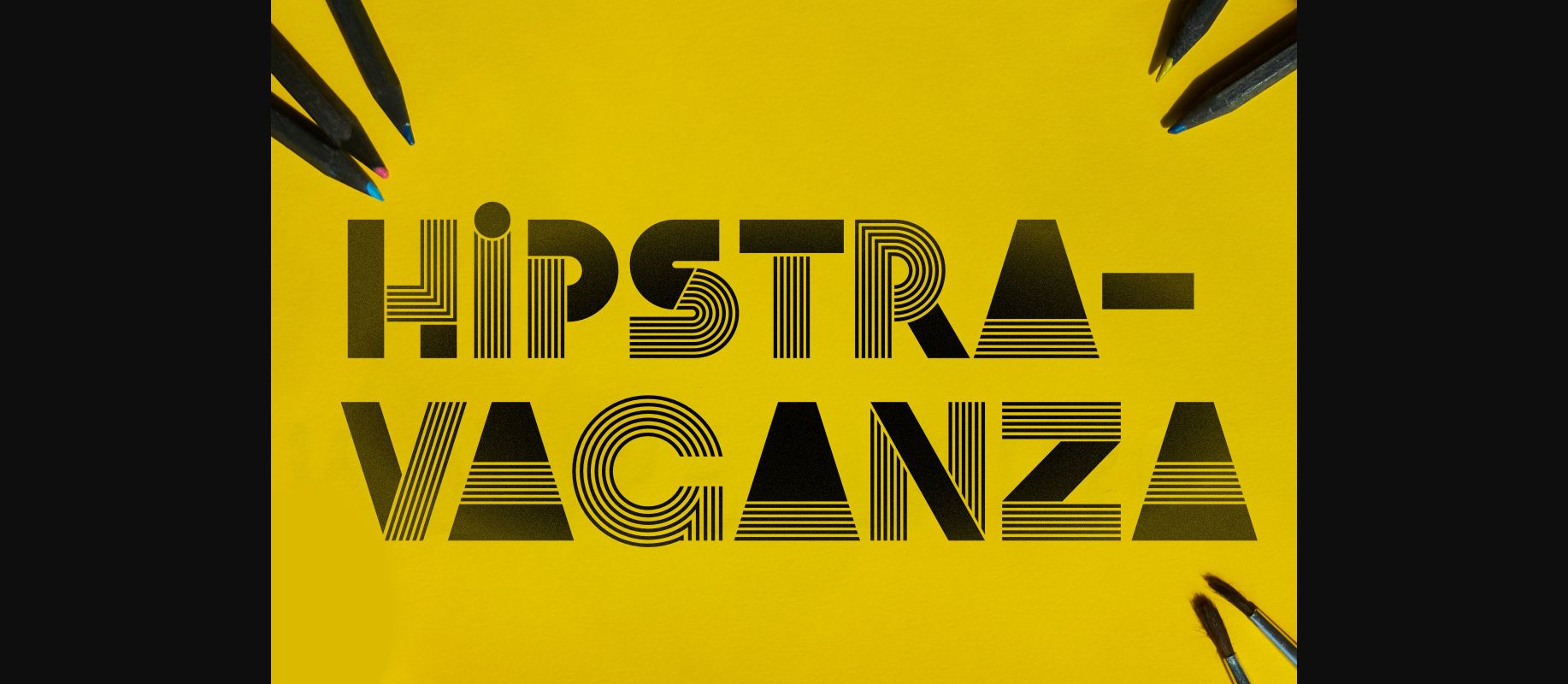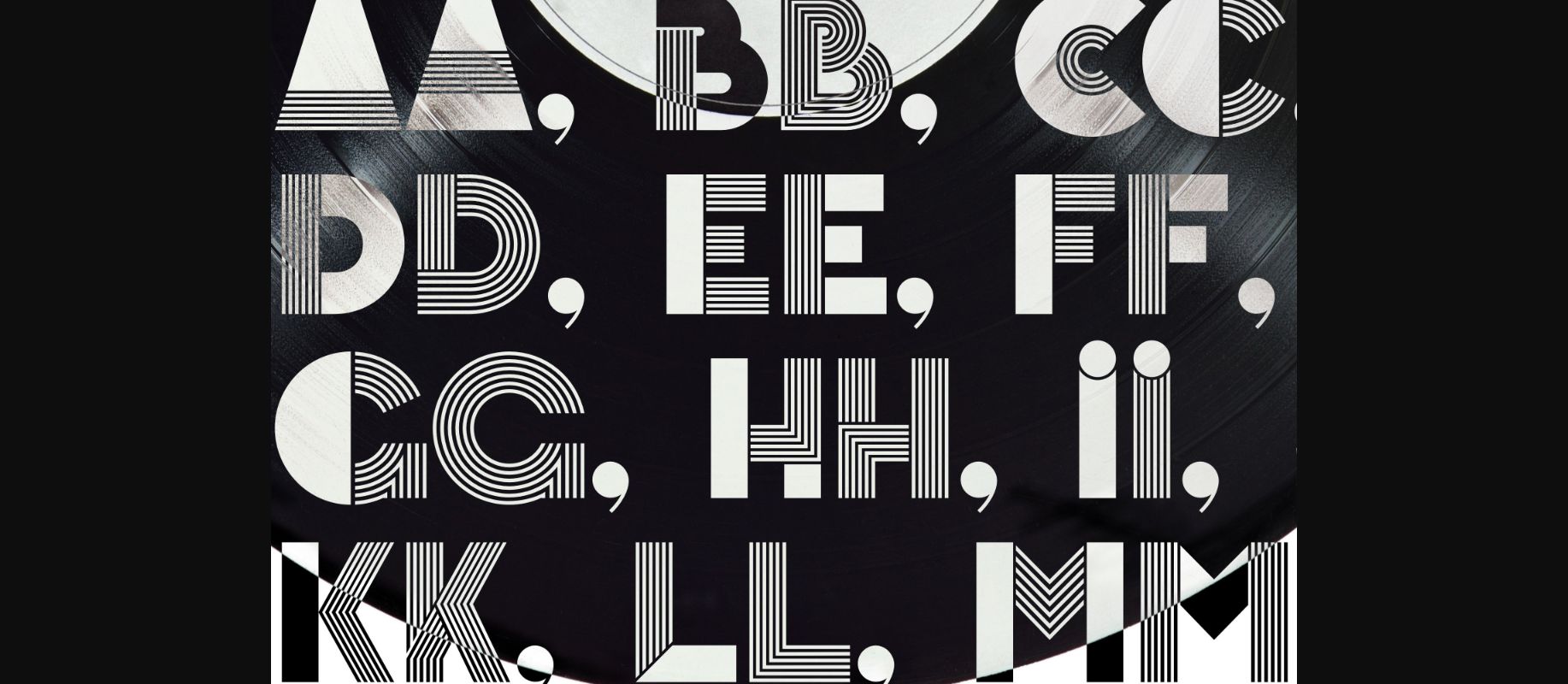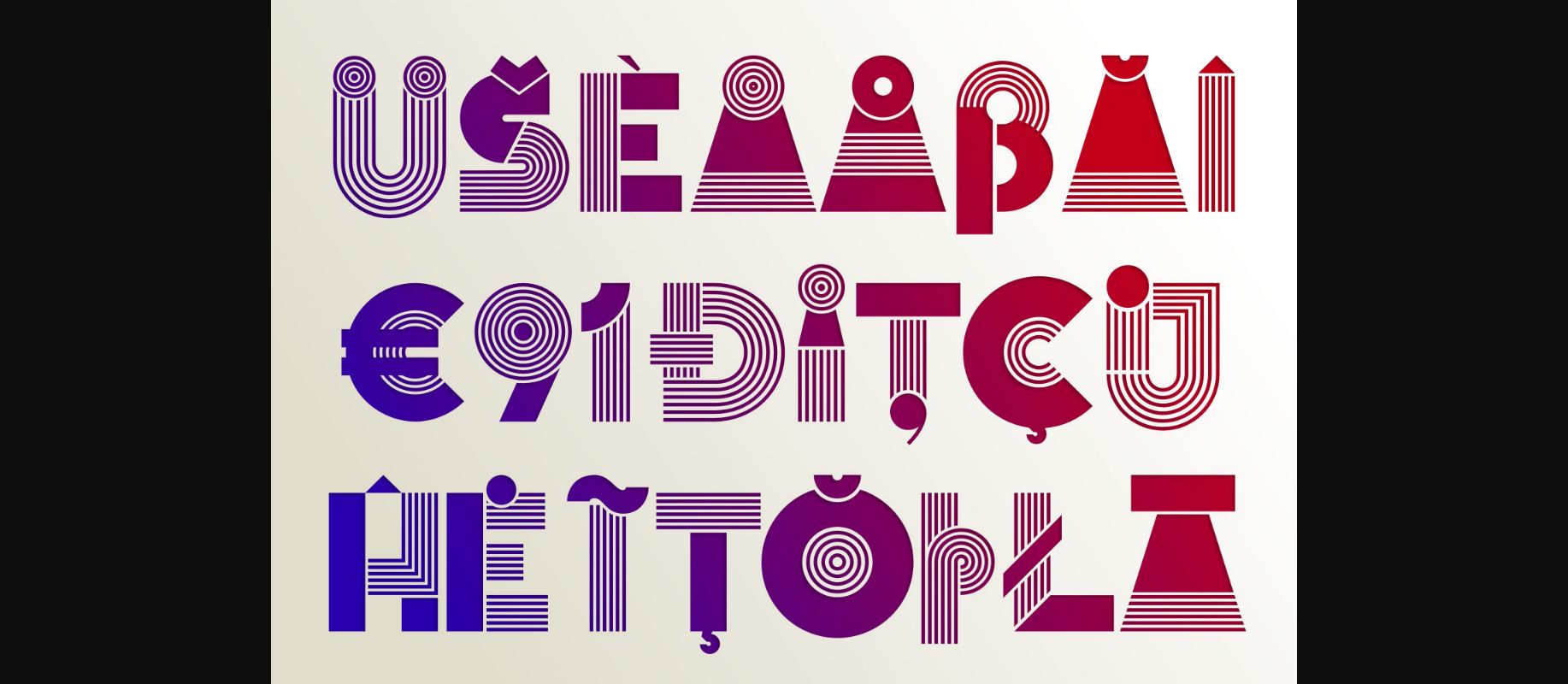
Hipstravaganza Font
About Hipstravaganza Font
This one is all about a flashy retro style. A mixture between blocks and parallel lines will help you create something with a bit more “bang!”
Because it is an all-caps font, the lowercase set is made into a second set of glyphs. They are similar to the caps, but with fewer blocks in the letters.
It works best as the centerpiece of a poster or as a foreground in front of photos. Due to its complex shapes, it’s a little difficult to pair up with too many elements and fonts, but it’s certainly an eye-catcher!
The parallel lines create a sort of illusion of partial transparency. Use this cool decorative font, and you’ll be amazed by the results!